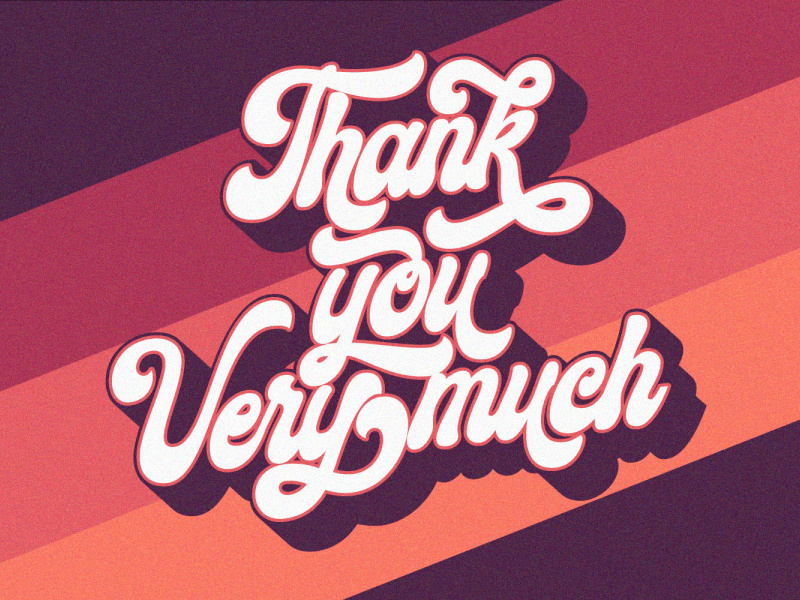
Ginchiest Font
The Ginchiest Font is known for its unique script typeface, making it popular for business purposes. This font is widely used for text generation and is also referred to as the Brandy font.
The primary is a font this is created with the useful content of using swashes font. He took the idea from the start. This font is used for t-shirt printing and logo designing talents.
Style Of Ginchiest Font Free